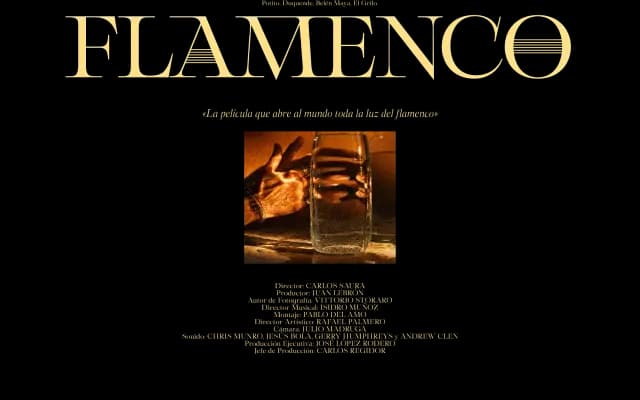
A serif typeface from Patio Foundry offered in Regular and Regular Italic.
Sonanta is a serif from Patio Foundry with at least a Regular and Regular Italic style. The page provides limited specimen detail, showing sentence, paragraph, alphabet and numeral views. Its scope appears modest, suited to text-setting tasks.
The page content is minimal but the name and foundry context suggest a text serif; classified as transitional serif pending more detailed specimen information.